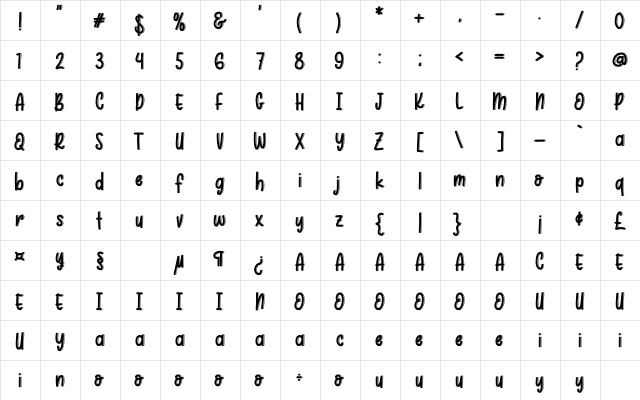
Anchor Regular
Design Context for Anchor Typeface
Anchor is a composed and adaptable typeface that performs quietly and consistently across a wide range of design contexts.